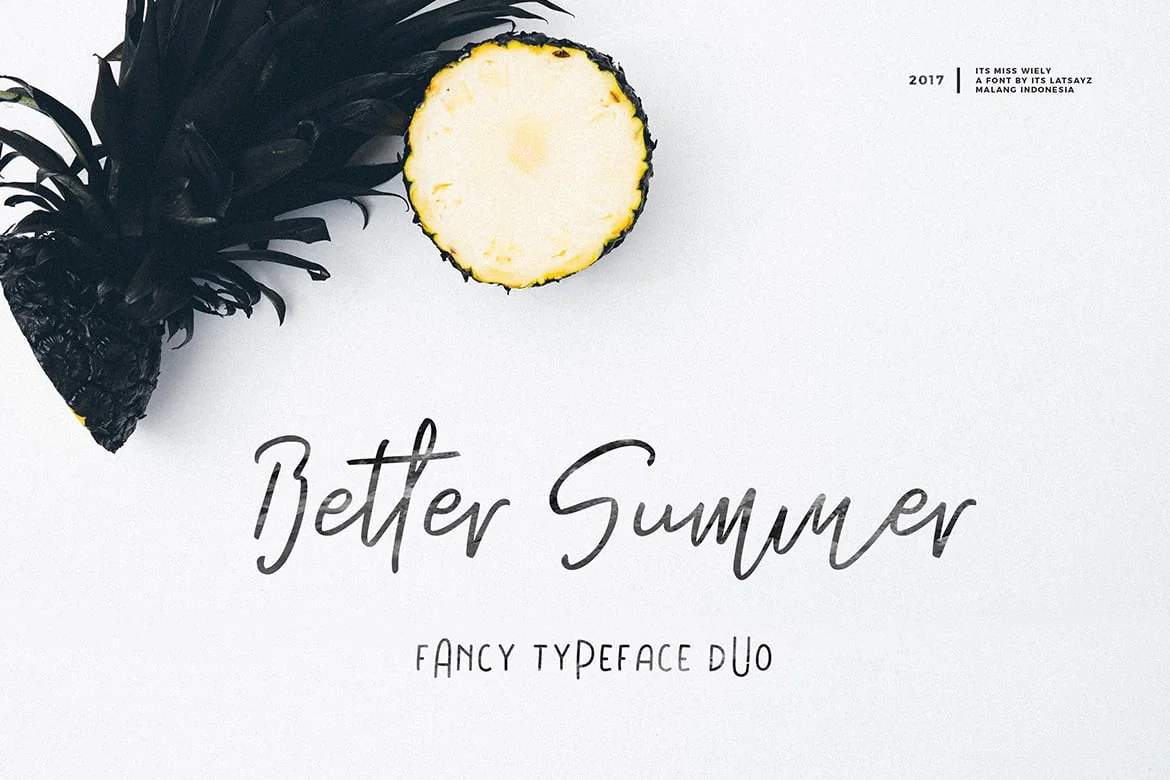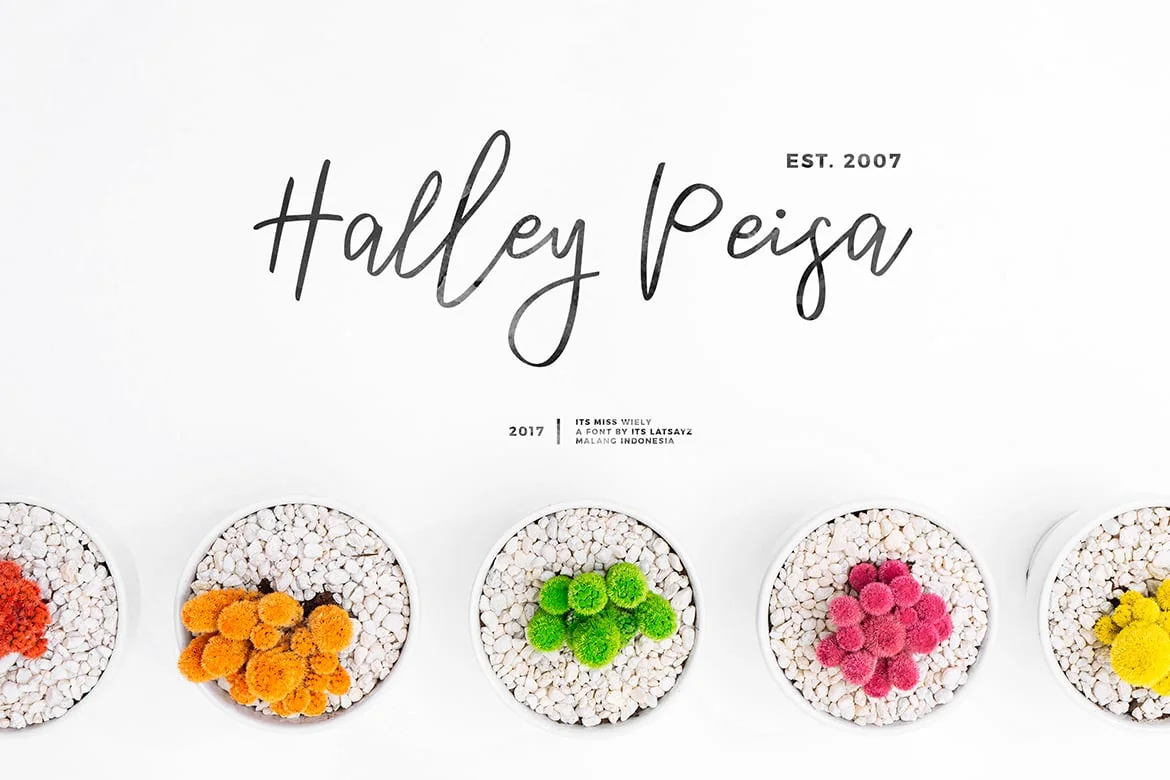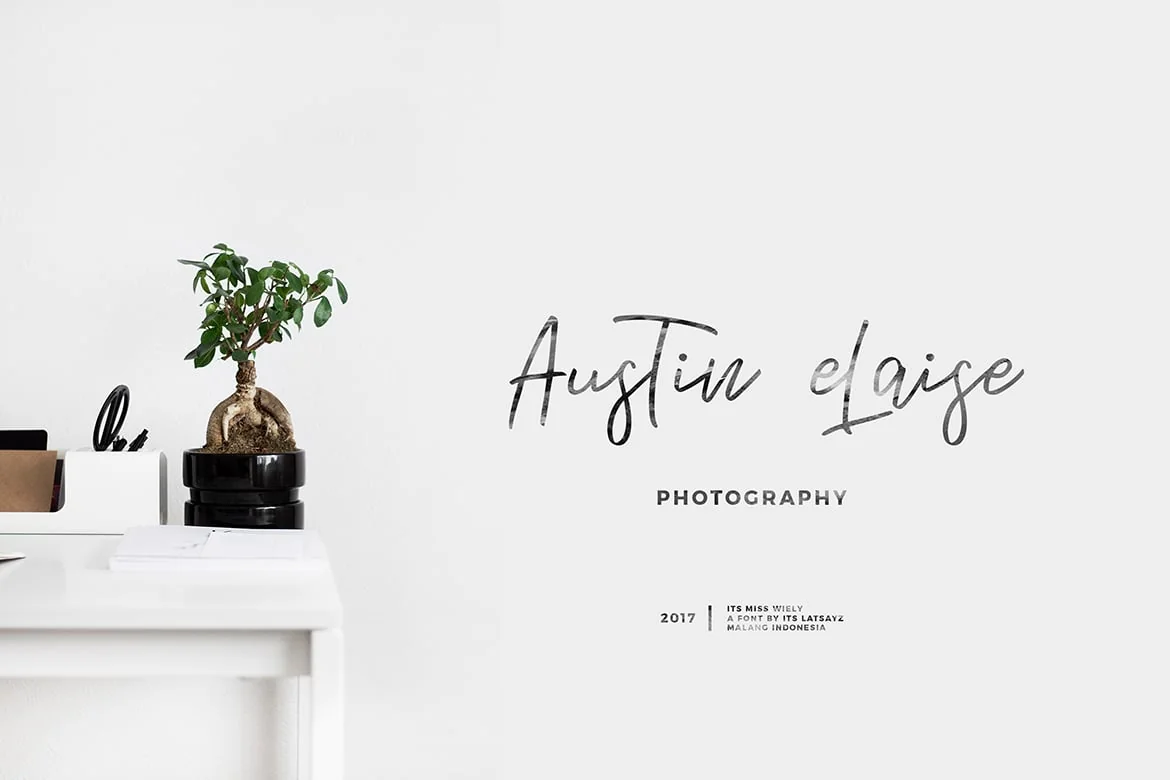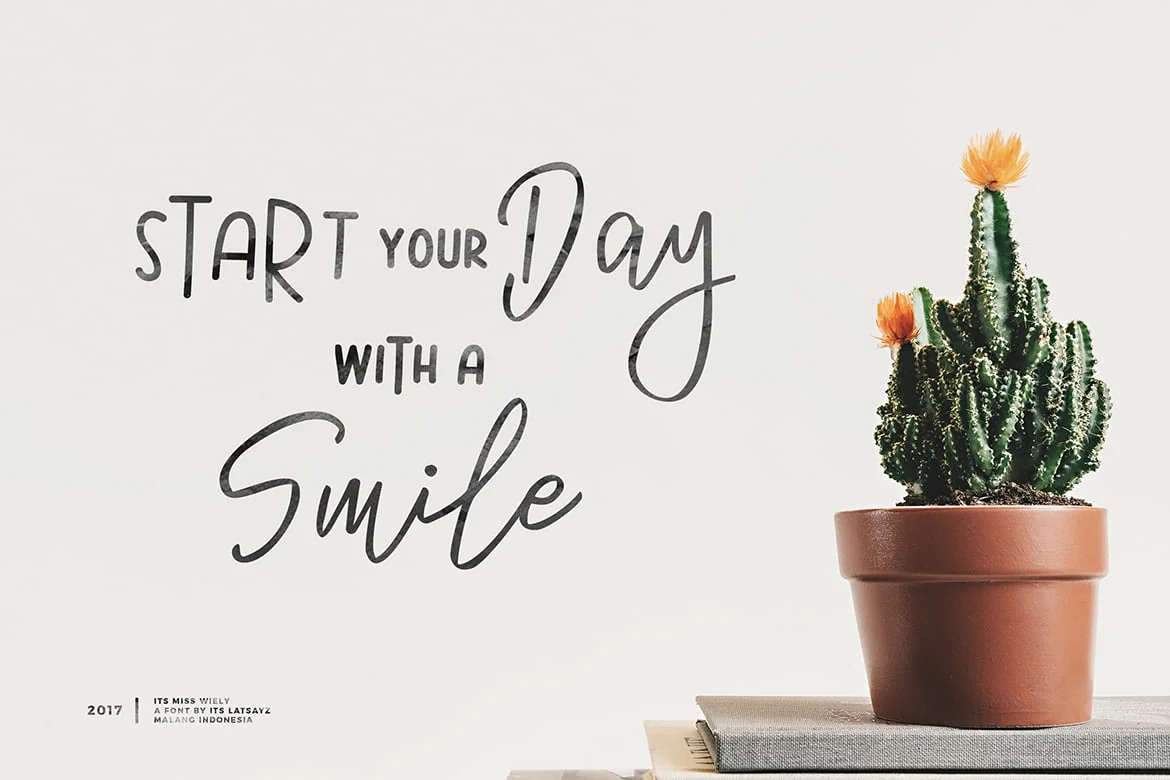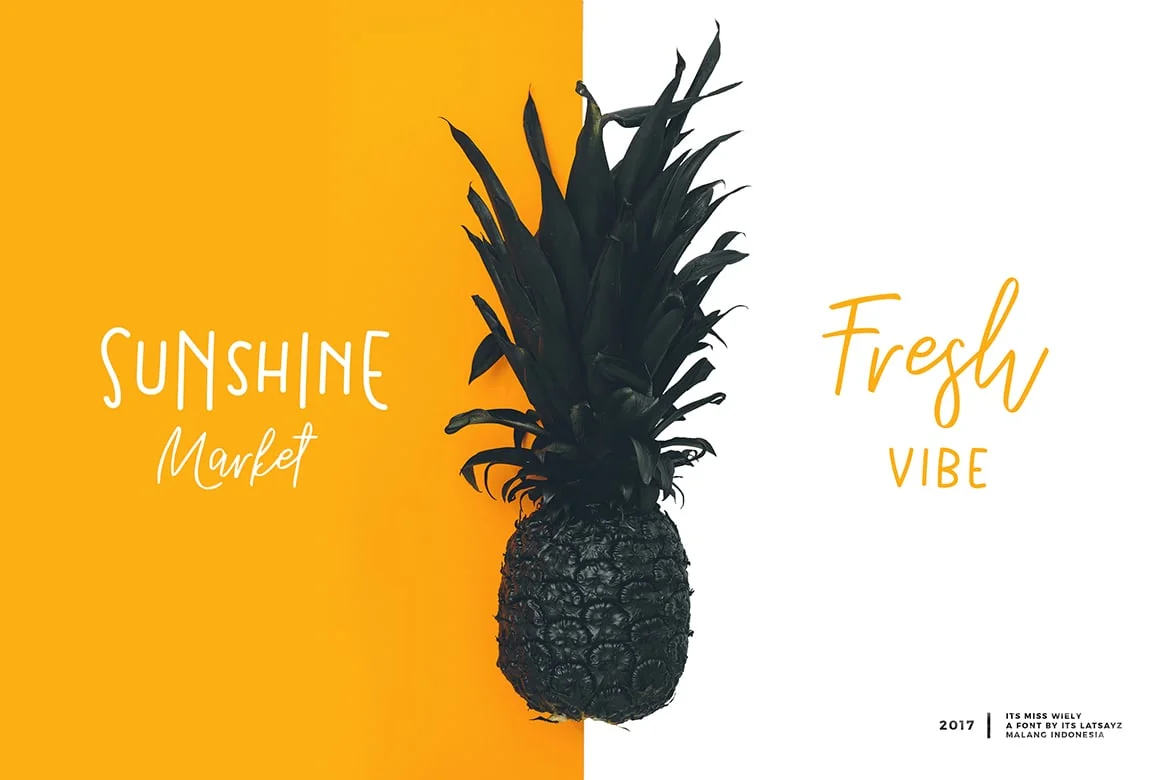
Its Miss Summer Font Duo
holla Its Miss Summer here, a fancy typeface duo perfect for your next project.
Miss Summer great for wedding, event, invitation, escort card, table number, header menus, display, logos, slider blog, custom address, stamps, packaging, greeting card, etc.
Miss Summer Features :